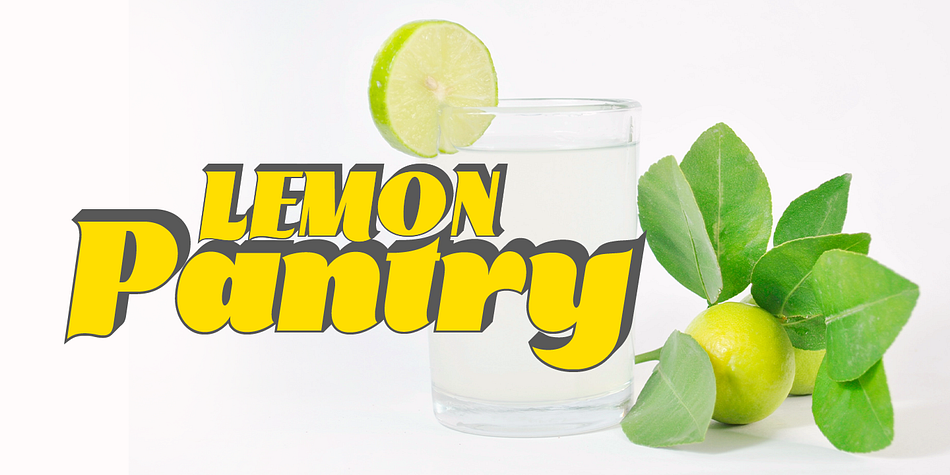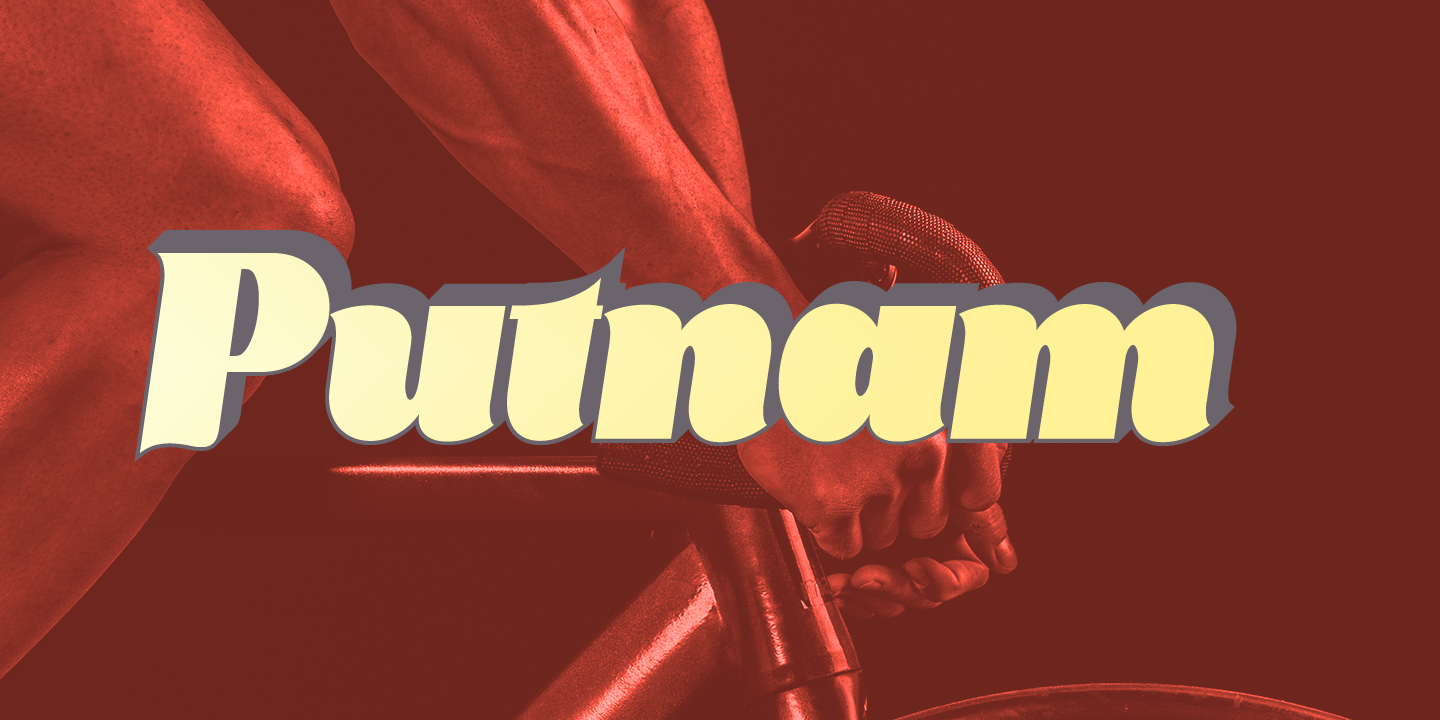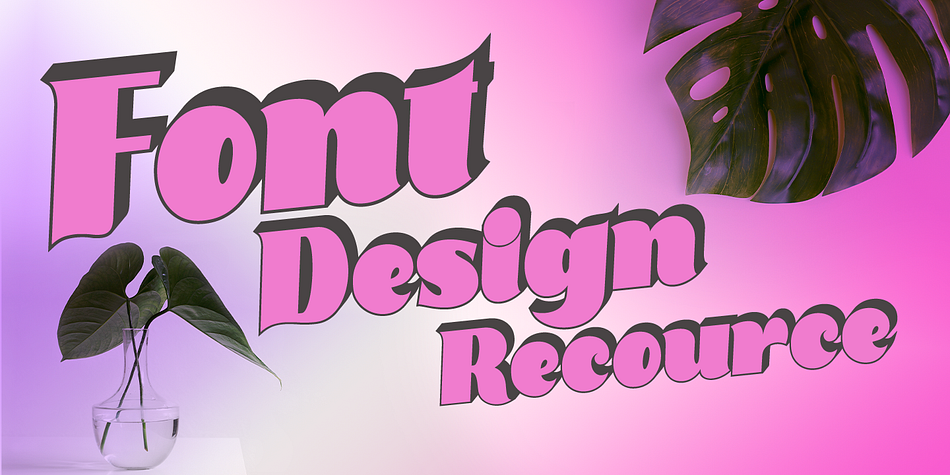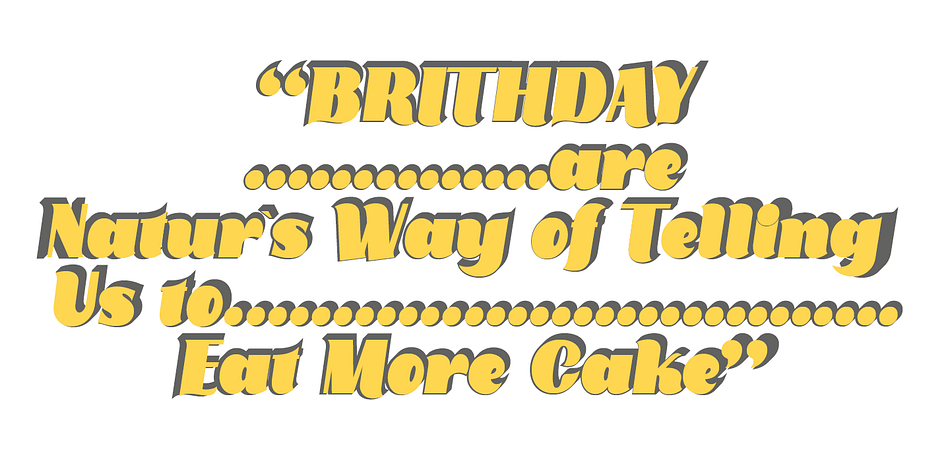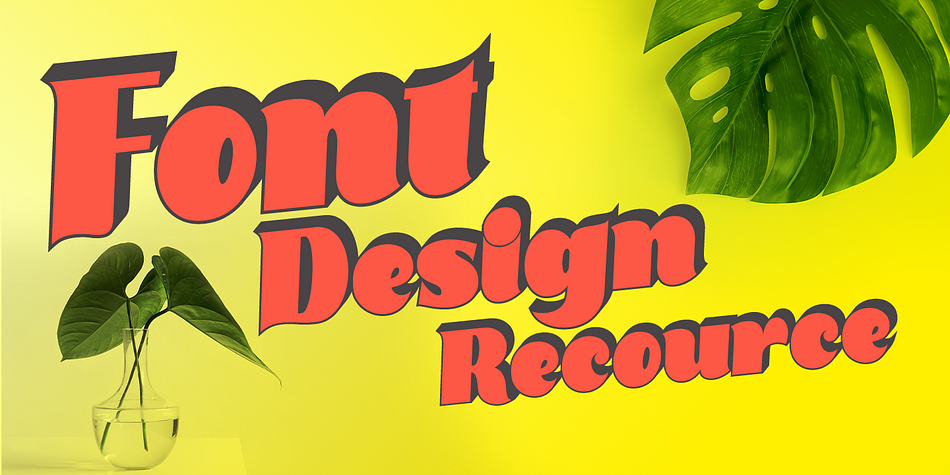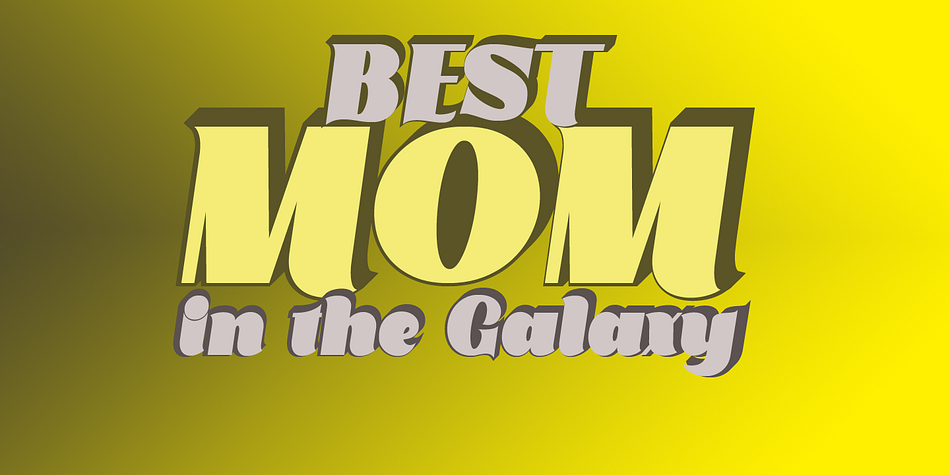
Putnam
Designed by Roiyani Teungku, Putnam is a display serif font family. This typeface has two styles and was published by Groens.
Putnam This is my font based on a handwritten project in a modern Serif style in the modern era. very much with today’s retro typography designs.
Putnam also comes with extra Extruded. as a function to create an extrusion effect for this font.
Can be used for various purposes.such as headings, logos, wedding invitation, t-shirt, letterhead, lable, news, posters, badges etc. Multilingual support for various languages including: French, German, Spanish, Portuguese, Italian, Dutch, Finnish, Swedish, and more.
Putnam works great in any branding, logos, magazines, films. The different weights give you a full range of whole hosts of applications, while the outlined fonts give a real modern feel to any project.